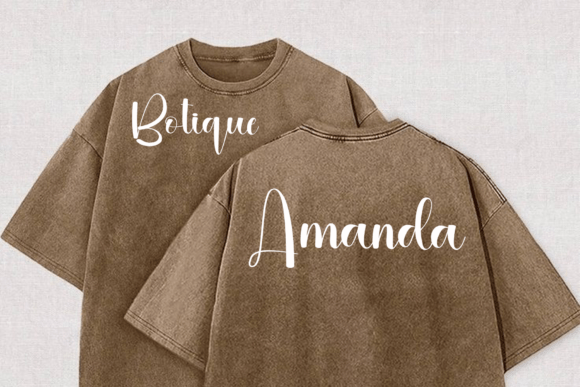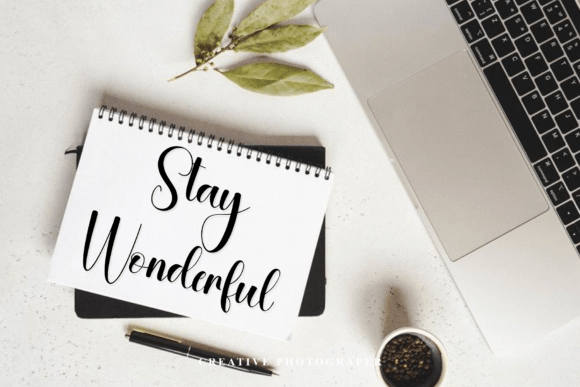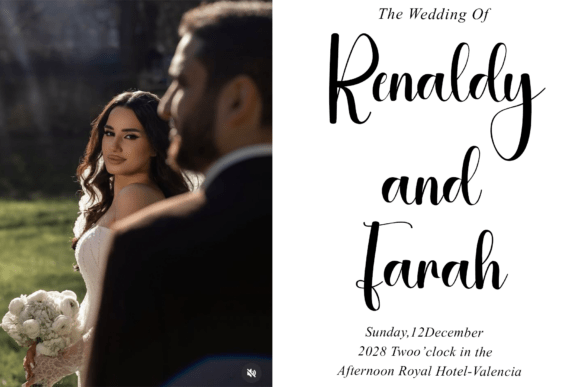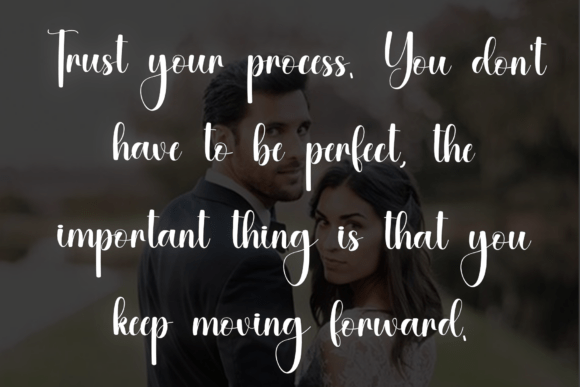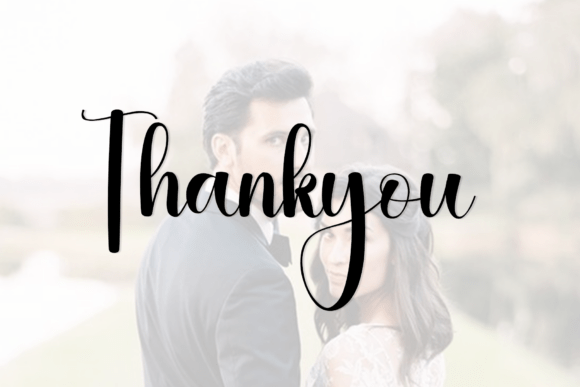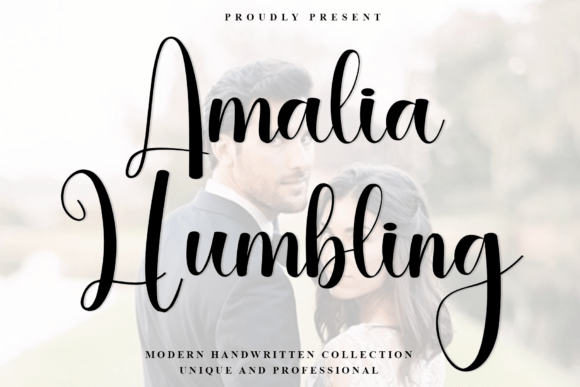
Introducing Amalia Humbling Font: Elevate Your Design with Elegance
Are you searching for a font that exudes sophistication, elegance, and a touch of luxury? Look no further than Amalia Humbling Font, a beautifully flowing and modern handwritten script font. Its smooth, generous curves and graceful, elongated strokes give it a signature look that’s perfect for designers, crafters, and anyone looking to add a touch of refinement to their projects.
The Perfect Blend of Modernity and Elegance
Amalia Humbling Font strikes the perfect balance between modernity and elegance, making it an ideal choice for a wide range of design applications. Whether you’re working on personal branding, photography watermarks, luxury wedding stationery, editorial design, or any project that requires a sweeping, authentic, and naturally luxurious touch, this font is sure to impress.
Key Features of Amalia Humbling Font
• Smooth and Generous Curves: Amalia Humbling Font boasts smooth, flowing curves that give it a sophisticated and elegant look.
• Graceful and Elongated Strokes: The font’s elongated strokes add a touch of refinement and luxury, making it perfect for high-end designs.
• Unique and Professional: Amalia Humbling Font is a one-of-a-kind typeface that’s both professional and unique, ensuring your designs stand out from the crowd.
Design Applications for Amalia Humbling Font
Amalia Humbling Font is versatile and can be used in a variety of design applications, including:
• Personal Branding: Create a lasting impression with Amalia Humbling Font, perfect for logos, business cards, and other marketing materials.
• Photography Watermarks: Add a touch of elegance to your photos with Amalia Humbling Font, ideal for watermarks and copyright information.
• Luxury Wedding Stationery: Make your wedding stationery truly special with Amalia Humbling Font, perfect for invitations, save-the-dates, and more.
• Editorial Design: Elevate your editorial designs with Amalia Humbling Font, suitable for magazine covers, articles, and other publications.
Why Choose Amalia Humbling Font?
With so many fonts available, why choose Amalia Humbling Font? Here are just a few reasons:
• Unique and Exclusive: Amalia Humbling Font is a one-of-a-kind typeface that’s sure to make your designs stand out.
• High-Quality Design: The font is designed with high-quality craftsmanship, ensuring it looks great in any design application.
• Ease of Use: Amalia Humbling Font is easy to use and works seamlessly with most design software.
Tips for Using Amalia Humbling Font
To get the most out of Amalia Humbling Font, here are a few tips:
• Use it Sparingly: Amalia Humbling Font is best used sparingly, as a headline or title font, to make a lasting impression.
• Pair it with Other Fonts: Experiment with pairing Amalia Humbling Font with other fonts to create a unique and visually appealing design.
• Adjust Font Size and Color: Play with font size and color to create a design that’s both elegant and eye-catching.
Amalia Humbling Font is a beautifully designed, modern handwritten script font that’s perfect for designers, crafters, and anyone looking to add a touch of elegance and sophistication to their projects. With its smooth curves, elongated strokes, and unique design, this font is sure to elevate your designs and make them stand out from the crowd.